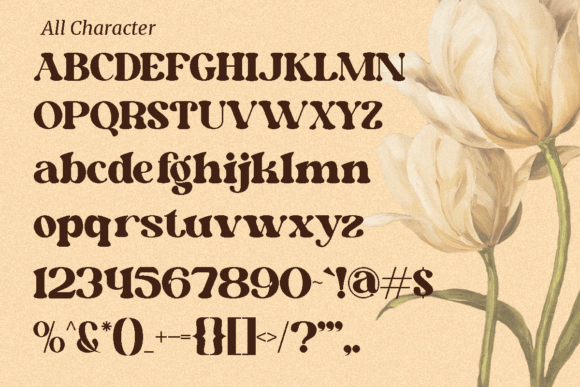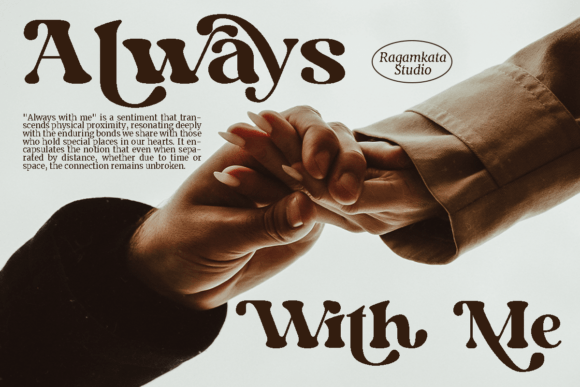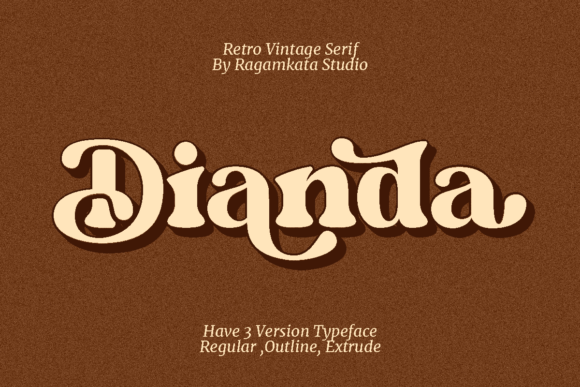
Dianda Font
Designer: RagamKata Studio
Dianda Font is a stylish font that is both retro and bold font. Works great for logos, magazines, and social media. It comes with unique lower and uppercase plus numbers, punctuation & multilingual letters, alternates, and ligatures.